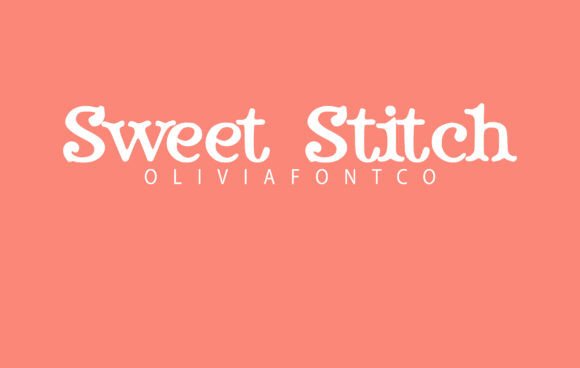
Sweet Stitch Font: The Perfect Handwritten Font for Your Creative Projects
In the world of typography, fonts play a crucial role in conveying the tone and personality of a brand or creative project. Among the numerous fonts available, Sweet Stitch font stands out as a beautiful, authentic handwritten font with a romantic touch. Designed to be a true favorite among designers and creative enthusiasts, Sweet Stitch font has the potential to elevate your creative ideas to new heights.
What Makes Sweet Stitch Font Special?
Sweet Stitch font is an expertly designed font that boasts a unique, handwritten aesthetic. Its romantic touch makes it perfect for a wide range of creative projects, from wedding invitations and cards to magazine headlines and social media graphics. The font’s legibility and versatility make it an excellent choice for both title and body text.
Key Features of Sweet Stitch Font
- Authentic Handwritten Font: Sweet Stitch font is designed to mimic the look and feel of handwritten text, giving your creative projects a personal touch.
- Romantic Touch: The font’s romantic aesthetic makes it perfect for projects that require a touch of elegance and sophistication.
- Legible and Versatile: Sweet Stitch font is designed to be easy to read, making it suitable for both title and body text.
- Wide Range of Applications: From wedding invitations and cards to magazine headlines and social media graphics, Sweet Stitch font can be used for a variety of creative projects.
Why Choose Sweet Stitch Font for Your Creative Projects?
With so many fonts available, why should you choose Sweet Stitch font for your creative projects? Here are a few compelling reasons:
1. Adds a Personal Touch
Sweet Stitch font’s handwritten aesthetic adds a personal touch to your creative projects, making them stand out from the crowd.
2. Elevates Your Brand’s Visual Identity
A well-designed font can elevate your brand’s visual identity, and Sweet Stitch font is no exception. Its romantic touch and elegant design make it perfect for brands that want to convey a sense of sophistication and elegance.
3. Versatile and Easy to Use
Sweet Stitch font is incredibly versatile and easy to use, making it perfect for a wide range of creative projects. Whether you’re designing a wedding invitation or a social media graphic, Sweet Stitch font is a great choice.
How to Use Sweet Stitch Font in Your Creative Projects
Using Sweet Stitch font in your creative projects is easy. Here are a few tips to get you started:
1. Pair it with Other Fonts
Sweet Stitch font pairs well with other fonts, making it easy to create visually appealing typography. Experiment with different font combinations to find the perfect look for your project.
2. Use it for Headlines and Titles
Sweet Stitch font is perfect for headlines and titles, adding a touch of elegance and sophistication to your creative projects.
3. Use it for Body Text
Sweet Stitch font is also suitable for body text, making it easy to create readable and visually appealing content.
In conclusion, Sweet Stitch font is a beautiful, authentic handwritten font with a romantic touch. Its legibility, versatility, and elegant design make it perfect for a wide range of creative projects. Whether you’re designing a wedding invitation, a social media graphic, or a magazine headline, Sweet Stitch font is a great choice. With its ability to add a personal touch and elevate your brand’s visual identity, Sweet Stitch font is sure to become a favorite among designers and creative enthusiasts.
- What is Sweet Stitch font? Sweet Stitch font is an authentic handwritten font with a romantic touch.
- What makes Sweet Stitch font special? Sweet Stitch font is special because of its unique, handwritten aesthetic and romantic touch.
- What can I use Sweet Stitch font for? Sweet Stitch font can be used for a wide range of creative projects, including wedding invitations, cards, magazine headlines, and social media graphics.
- Is Sweet Stitch font easy to read? Yes, Sweet Stitch font is designed to be easy to read, making it suitable for both title and body text.